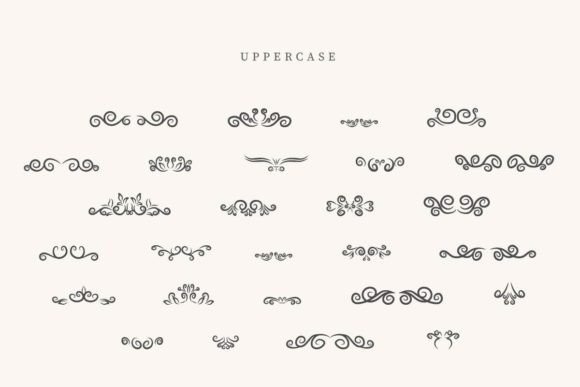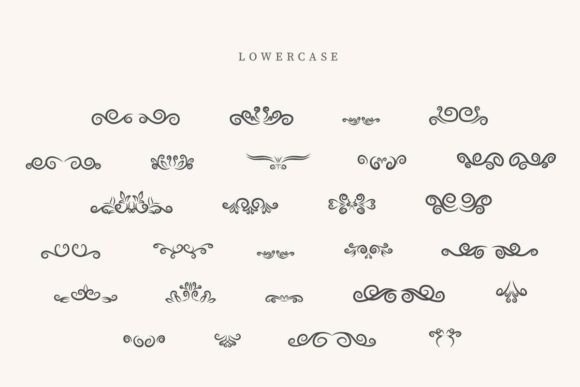
Introduction to Heart Divider Font
Heart Divider is a vintage dingbat font.
This dingbat font features cute ornament dividers with a retro, vintage, and western theme, perfect for crafting projects With its adorable and decorative design, this font adds a fun touch to any creative endeavor.
Key Features of Heart Divider Font